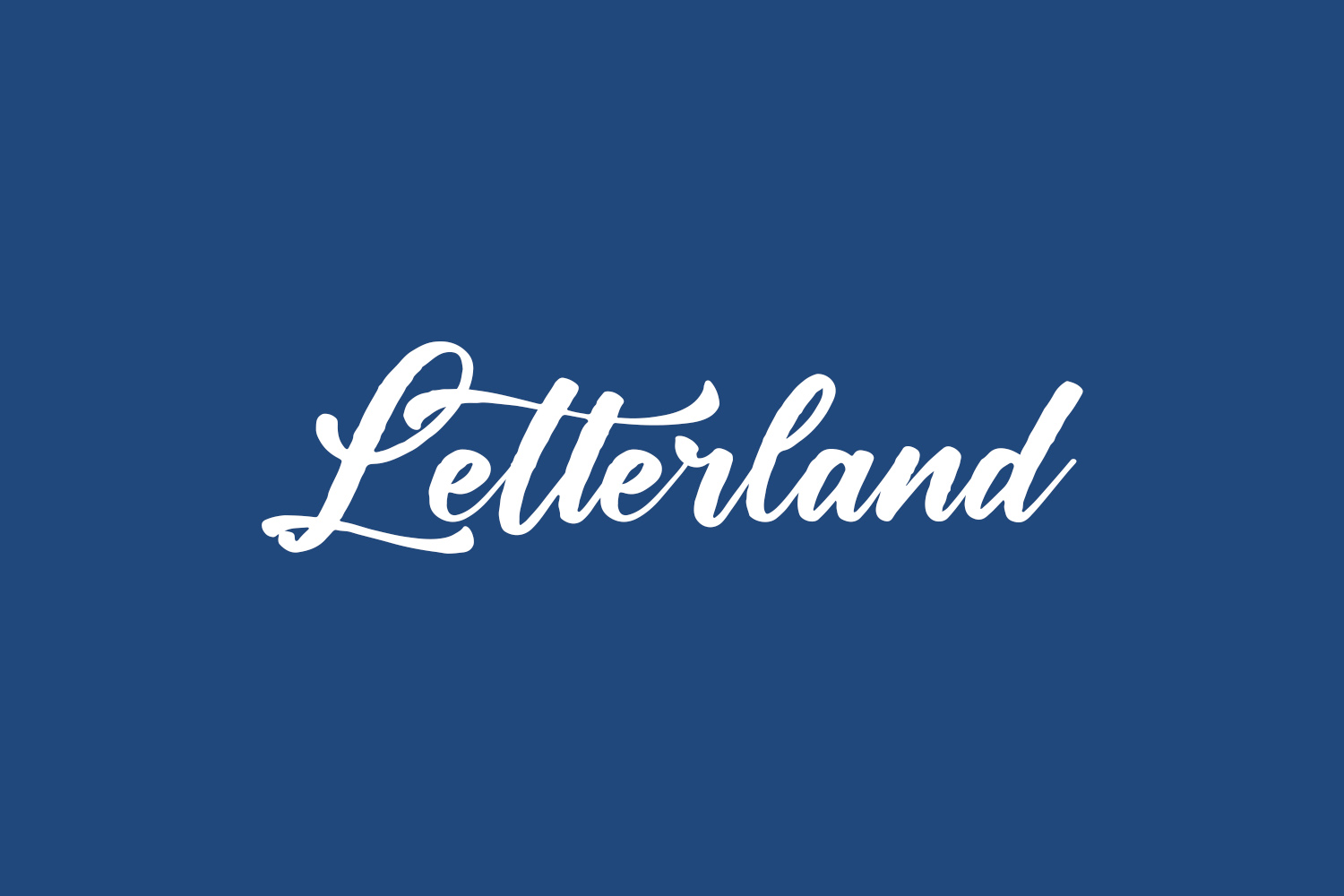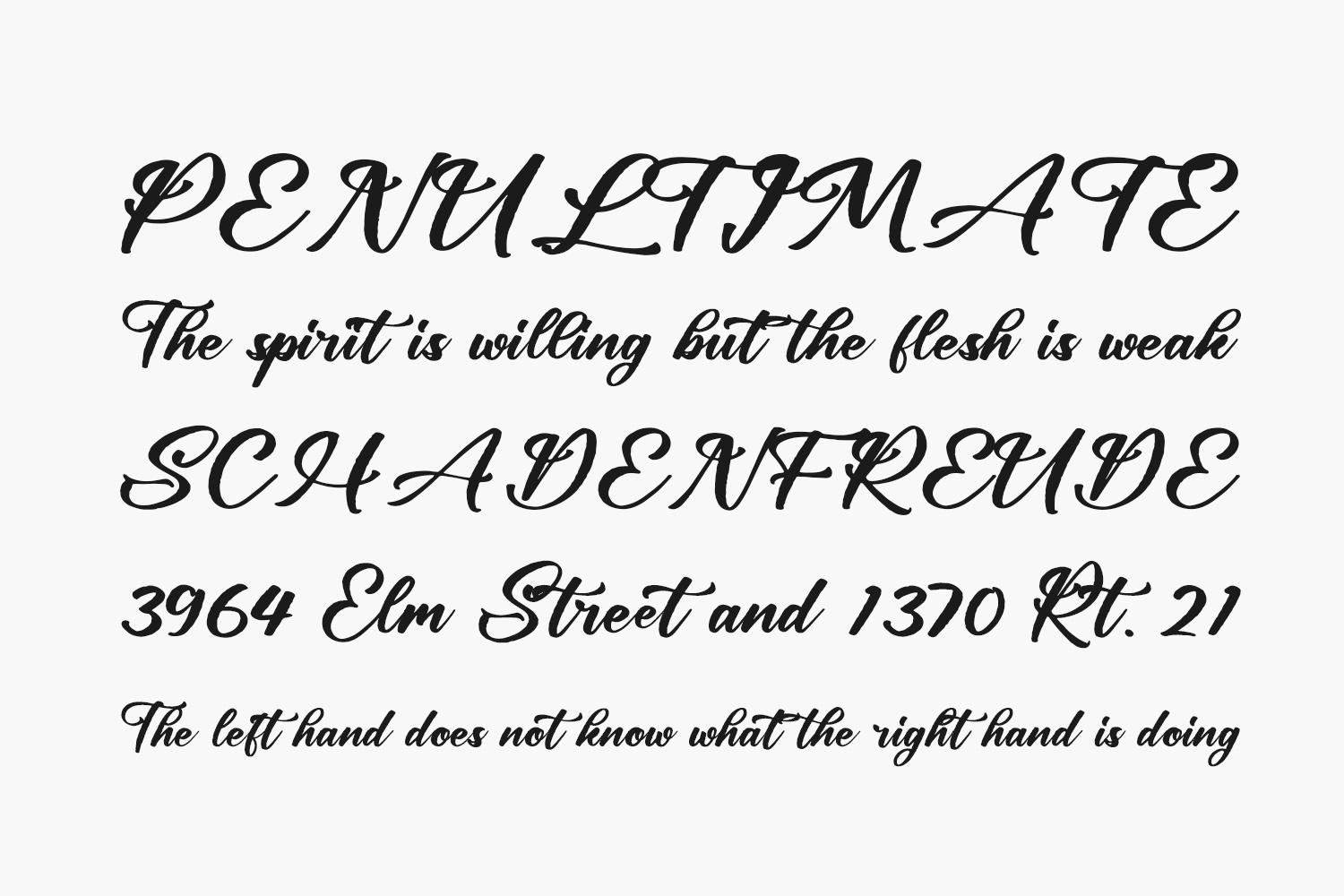
Letterland Free Font is a delicate, elegant, and flowing handwritten font. It has beautiful and well balanced characters and as a result, it matches a wide pool of designs. Letterland Free Font is free for personal use only. Please purchase the full version for commercial use.
Designed by Letterena Studios